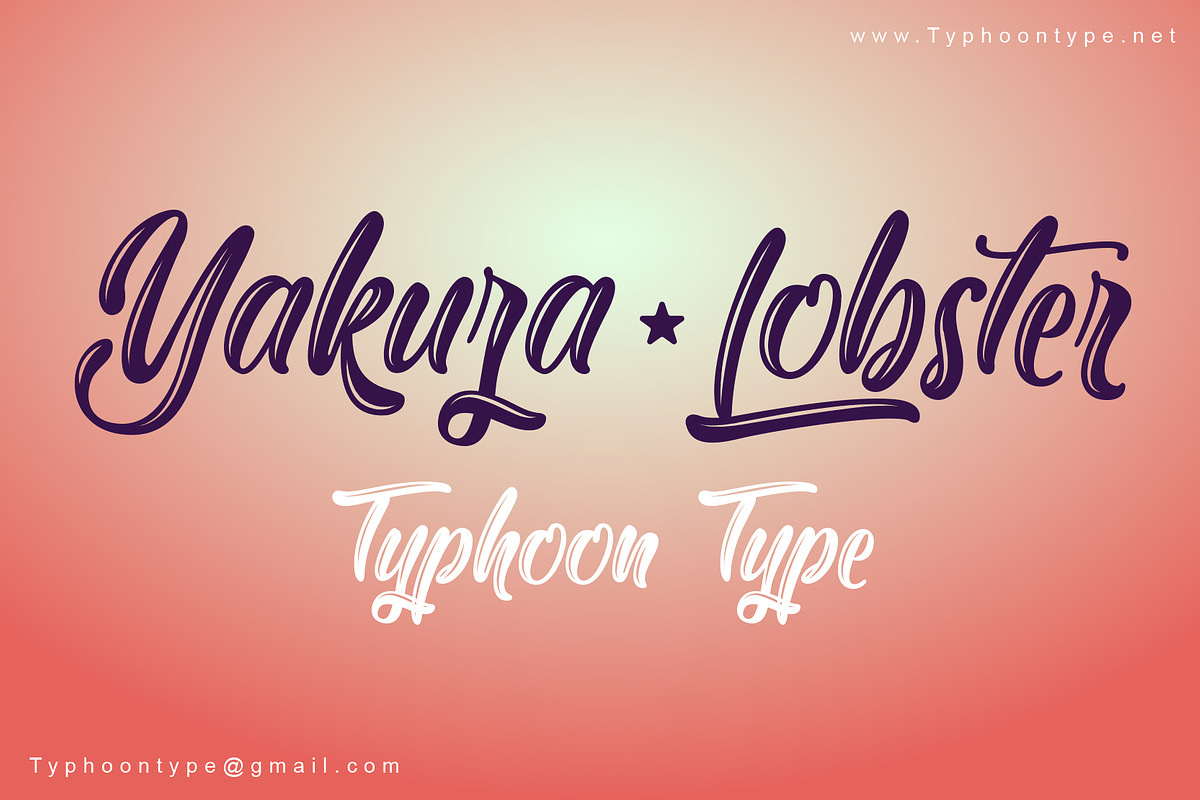
Yakuza Lobster font
Yakuza Lobster This font perfect for logos, name tag, advertising, product packaging, clothing, social media & greeting cards.
Why Yakuza Lobster font is worth a look
Yakuza Lobster font by TyphoonStudio fits naturally into Branding, posters, packaging, typography.